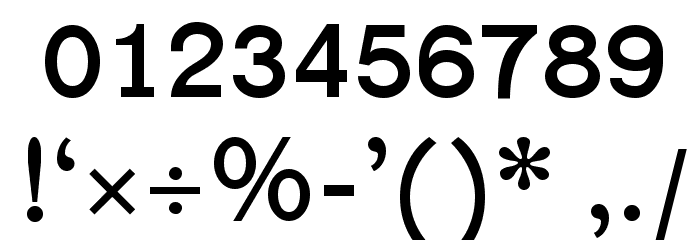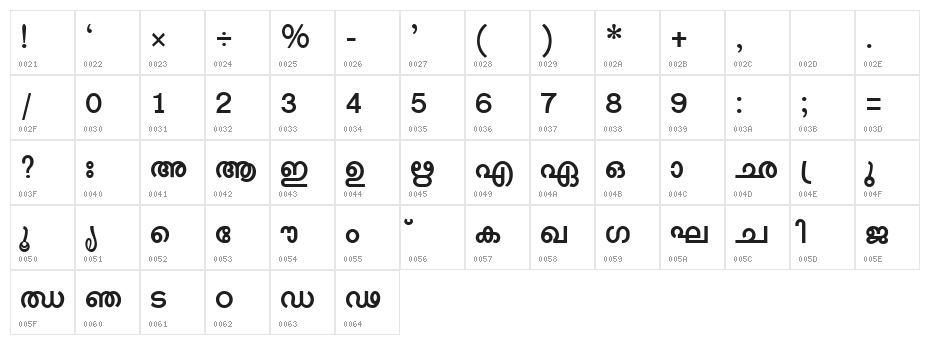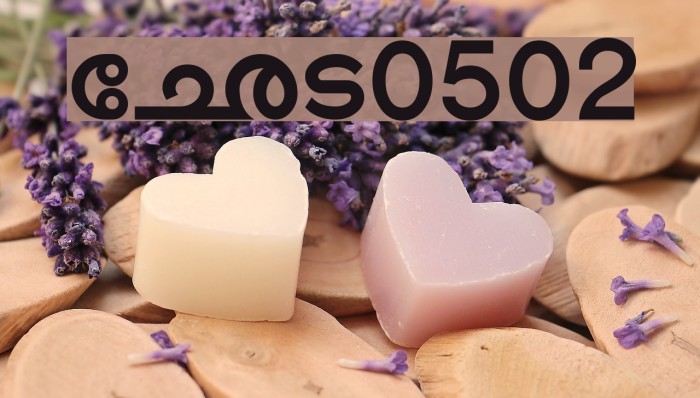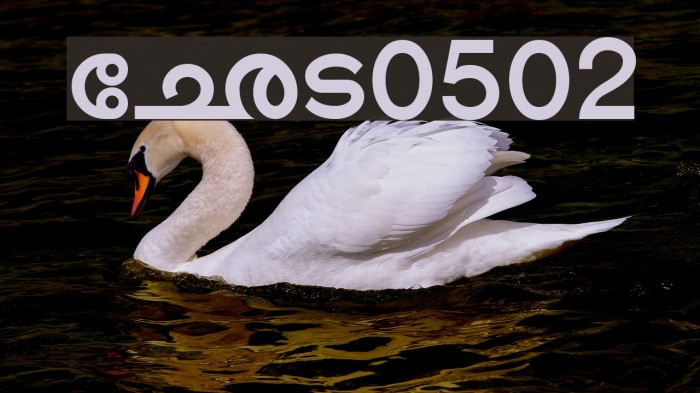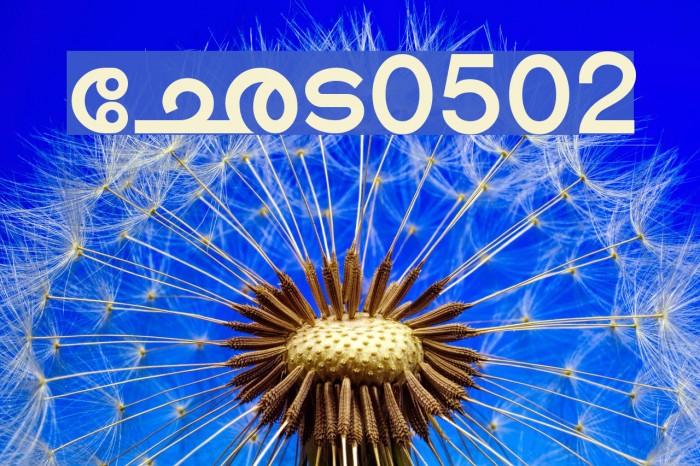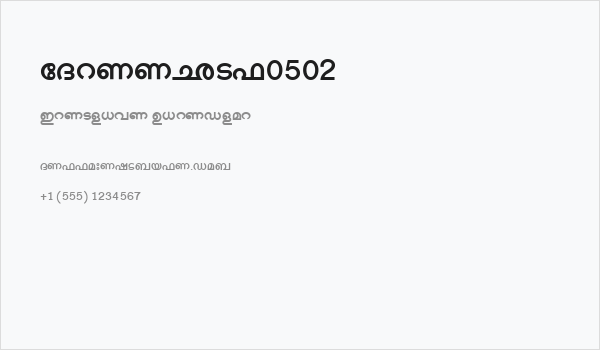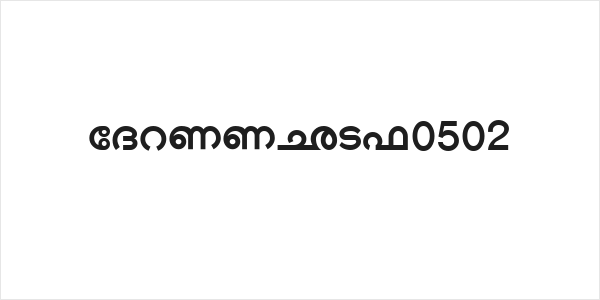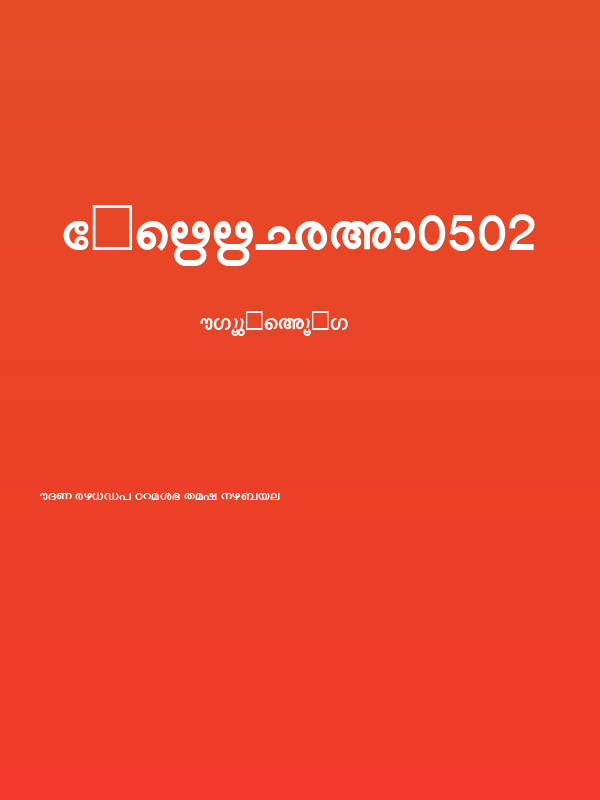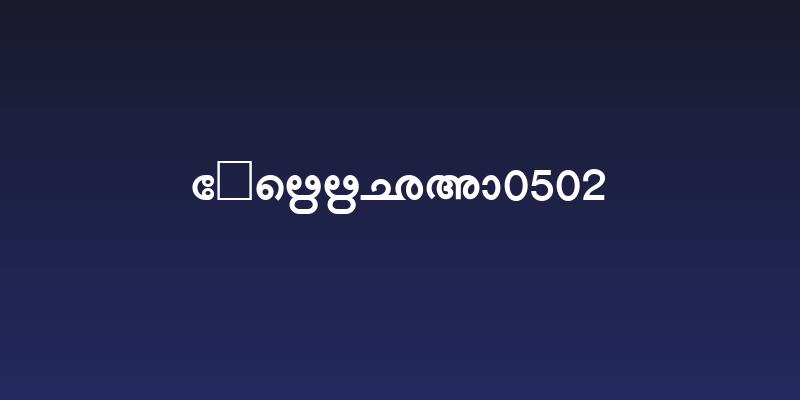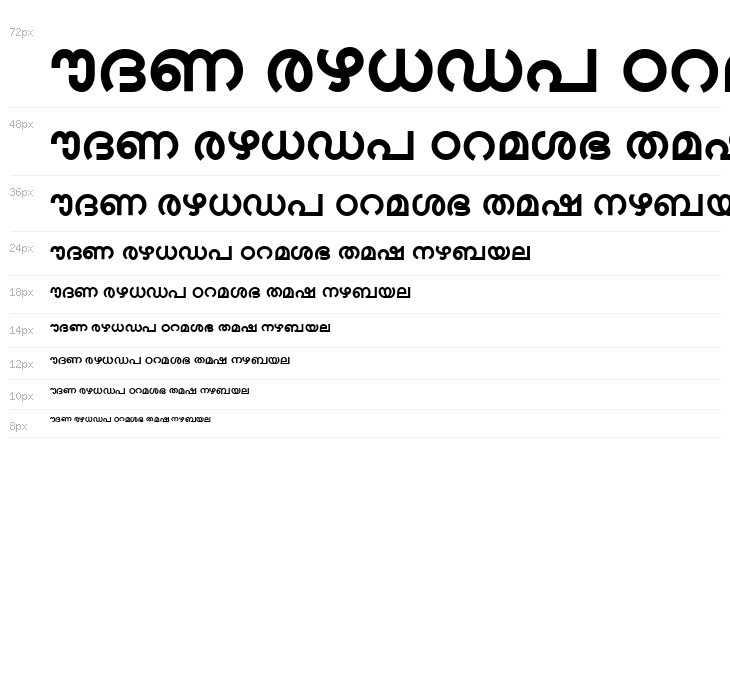
Shree-Mal-0502 Font
Shree-Mal-0502 Description
This font is a bold and modern typeface featuring characters from the Malayalam script. It presents a clean and contemporary look with well-defined curves and strokes, making it highly legible. The numerals and special characters are designed to match the overall style, providing a cohesive appearance. The font's structure is robust, with a consistent stroke width that enhances readability. It is suitable for both digital and print media, offering versatility in various design contexts.